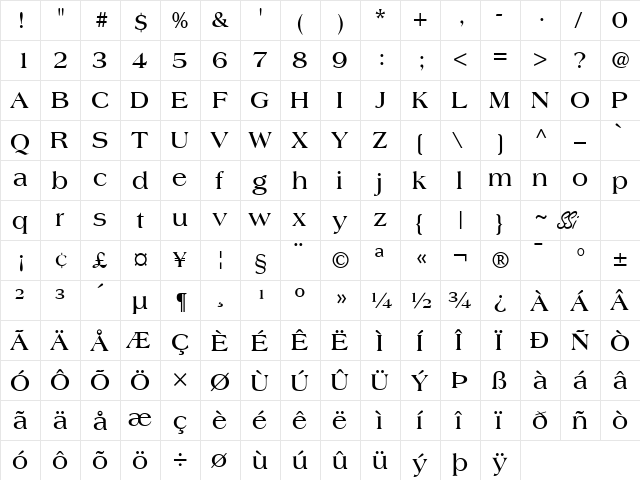
Countryside SSi Bold Font Preview
Countryside SSi Bold
Countryside SSi Bold Font Details
Design Context for Countryside SSi Typeface
Countryside SSi is a composed and adaptable typeface that performs quietly and consistently across a wide range of design contexts. The heavy weight commands attention and anchors typographic hierarchies.